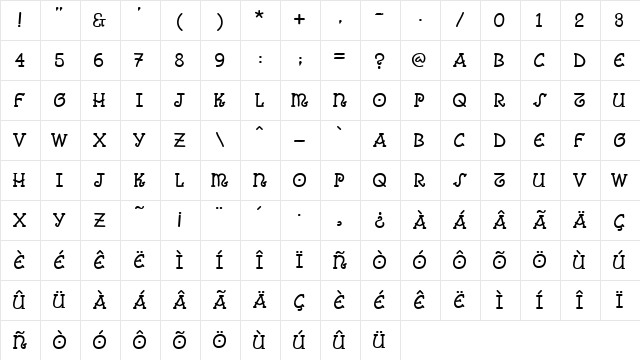
Comic Arousa Comic Arousa
Design Context for Comic Arousa Typeface
Comic Arousa has an approachable, lighthearted character — its loose, expressive forms are well-suited to children's content, casual branding, and fun-first design.
Font Pairing: Pairs well with a rounded or humanist sans for body copy, maintaining the friendly tone without relying on Comic Arousa to carry extended reading.
Pro Tip: Use Comic Arousa at larger display sizes where its expressive character can land. Pair with a clean, simple sans for body copy to maintain readability.